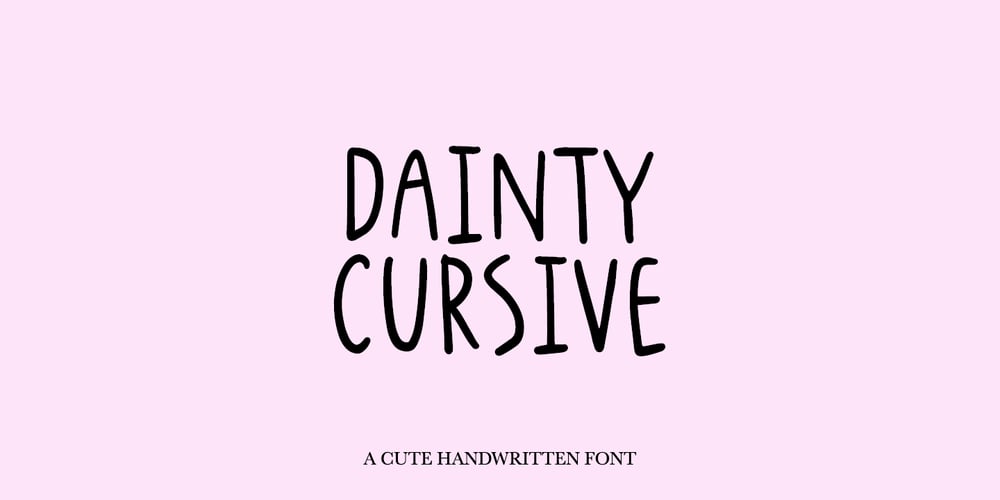
Dainty Cursive Font Family was designed by Dmitrii Chirkov and published by Supfonts. Dainty Cursive contains 1 styles and family package options. Dainty Cursive it is cute handwritten marker fontThis font is perfect for branding, cricut projects, wedding invitations, logos, vinyl, svg files, stickers, cards, signs and more!